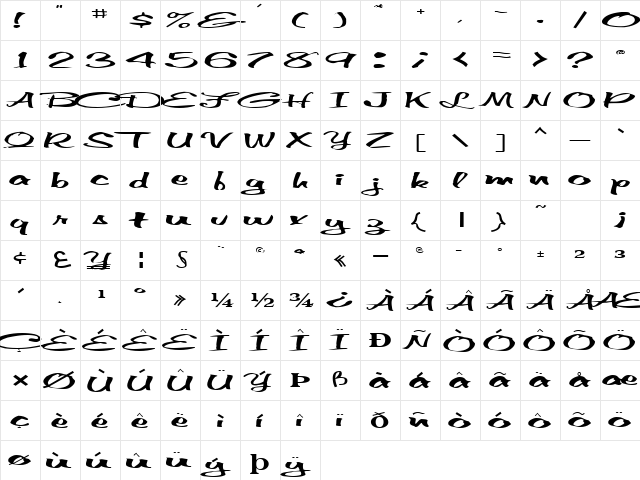
FootLoose43 Regular Font Preview
FootLoose43 Regular
Design Context for FootLoose43 Typeface
FootLoose43 is a composed and adaptable typeface that performs quietly and consistently across a wide range of design contexts.